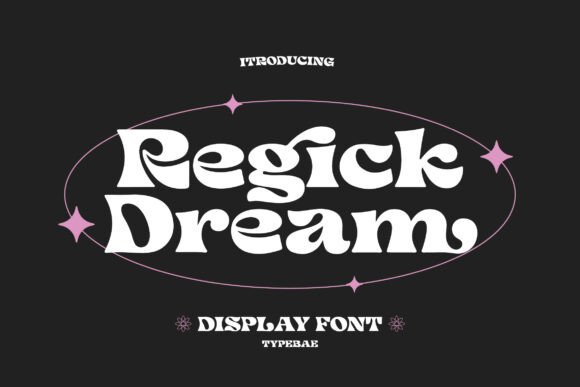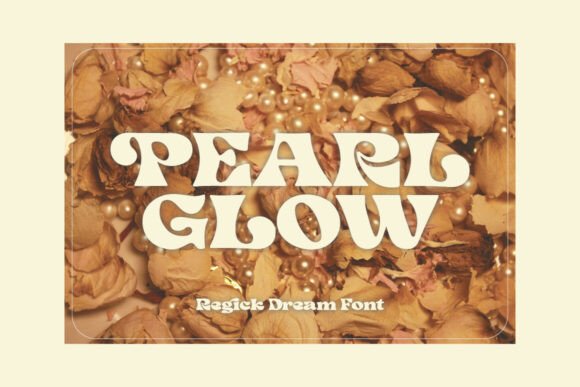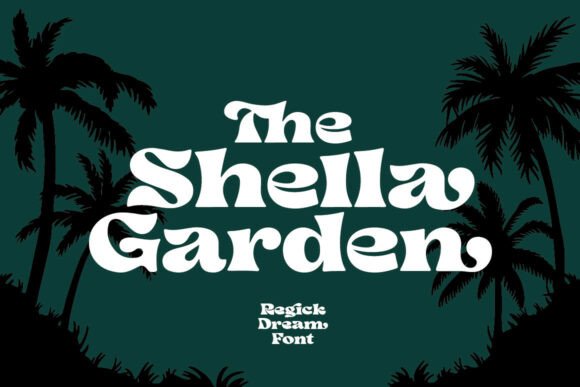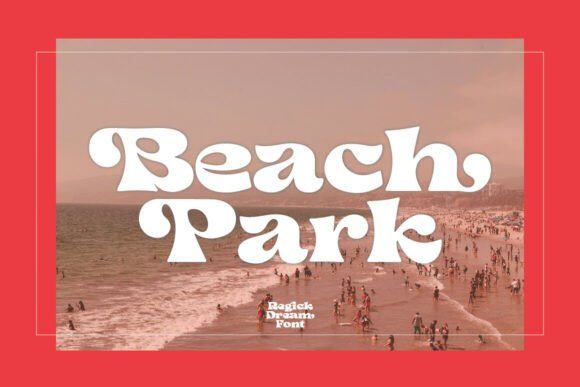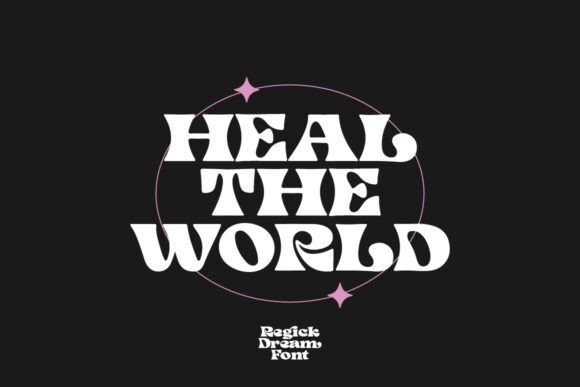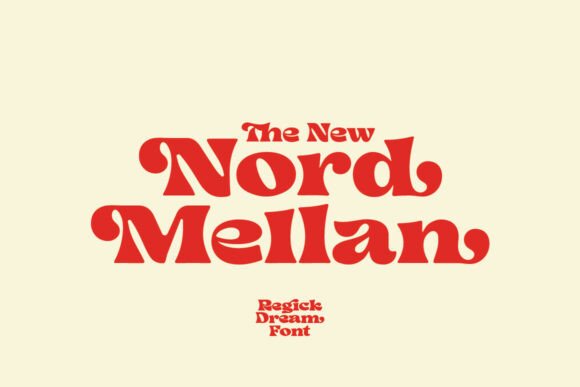
Unleash Your Creative Side with Regick Dream Font
Have you ever found yourself stuck in a creative rut, longing for a font that captures the essence of a bygone era? The nostalgic thrill of designing with vintage-inspired typography can be a powerful catalyst for your next big project. For designers seeking a distinctive visual identity, Regick Dream Font is the perfect solution.
With its bold display style and soft curves, this font transports you to a world of retro psychedelia and vintage editorial typography. The result is an eye-catching atmosphere that’s perfect for posters, branding, packaging, and social media visuals. Whether you’re working on a groovy 70s-inspired project or a modern retro design, Regick Dream Font offers the flexibility you need to bring your creative vision to life.
Key Features of Regick Dream Font
- High-quality design resource for creative projects: Regick Dream Font is a beautiful, hand-drawn font perfect for adding a touch of elegance to your designs.
- Unique, hand-drawn style: This font features a unique, hand-drawn style that sets it apart from other fonts in its class.
- Perfect for creative projects: Regick Dream Font is perfect for use in creative projects, such as wedding invitations, birthday cards, and other special occasion designs.
Honest Review: Regick Dream Font
I recently stumbled upon the Regick Dream Font, and I’m excited to share my honest review with you. As a designer, I’m always on the lookout for high-quality design resources that can elevate my creative projects. The Regick Dream Font definitely delivers.
What works well is the font’s versatility. It’s perfect for digital designs that require a clean and modern look. The font is highly legible, making it ideal for body text and headings. The transparent background option is also a plus, allowing for seamless integration with any design element.
- ✨ Highly legible and versatile font
However, I do have some limitations to mention. The font is only available in a limited number of weights, which might be a concern for designers who require a wider range of options. Additionally, the font’s compatibility with certain software might be an issue.
⚠️ Limited number of font weights
Overall, I’m impressed with the Regick Dream Font. It’s a great addition to any designer’s toolkit, and the free download option makes it an excellent value. While it may have some limitations, the font’s quality and versatility make it a solid choice for any creative project.
The Regick Dream Font is a high-quality design resource that offers a unique and creative touch to your projects. With its transparent background, this font is perfect for designers who want to add a subtle yet elegant look to their work.
Getting the Most Out of Regick Dream Font
For the best results, use the Regick Dream Font in combination with other high-quality design resources. Experiment with different font sizes, colors, and styles to create a unique look that suits your project.
The Regick Dream Font is perfect for creative projects such as:
– Infographics
– Brochures
– Posters
– Social media graphics